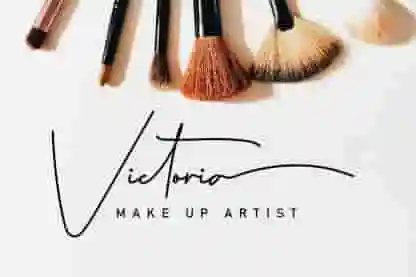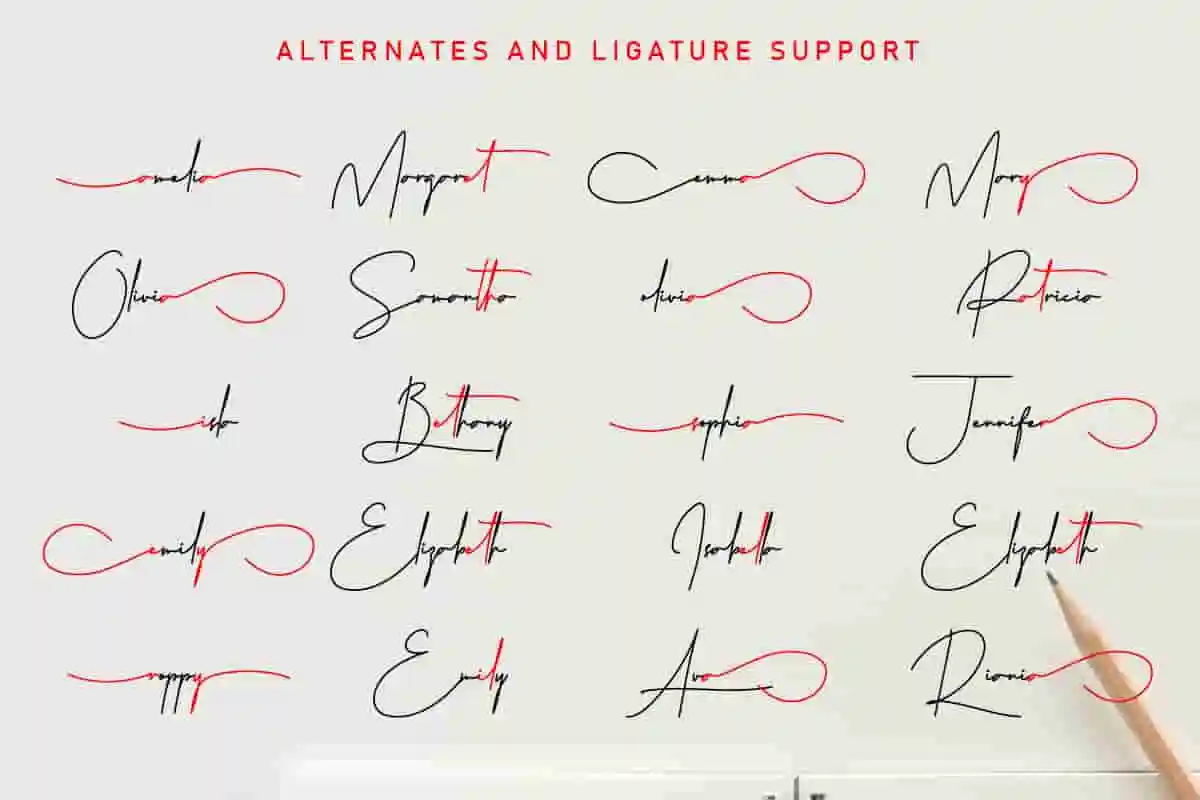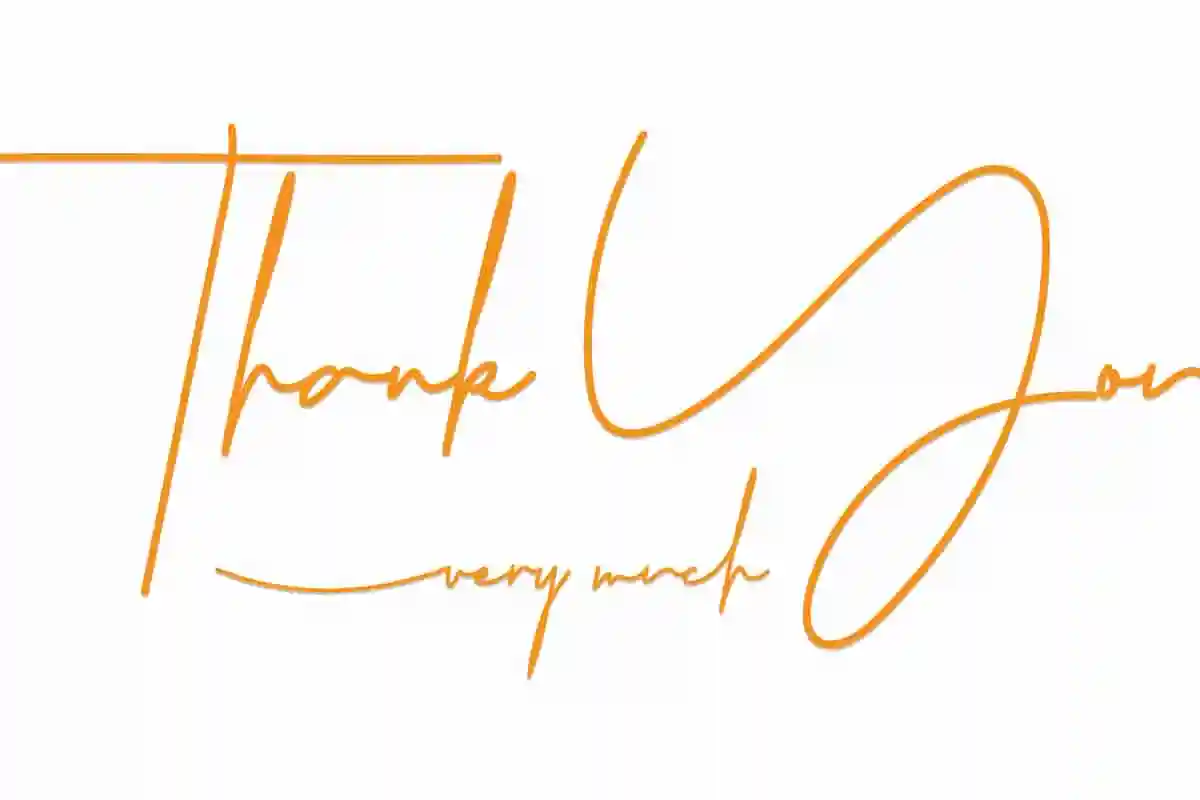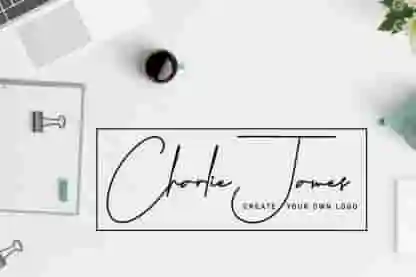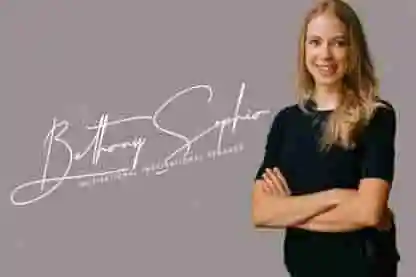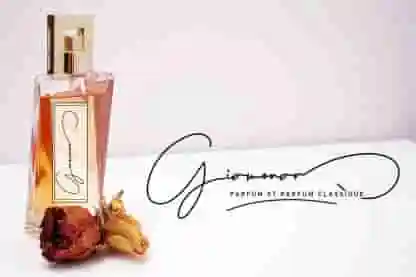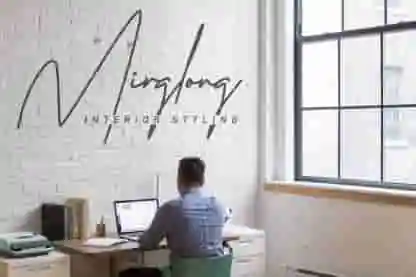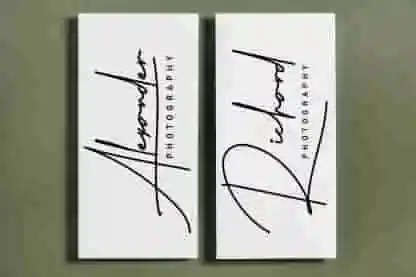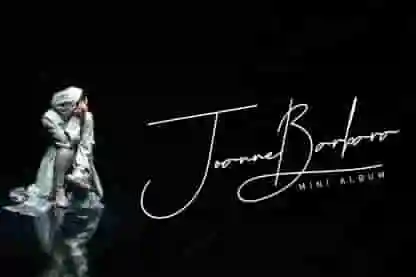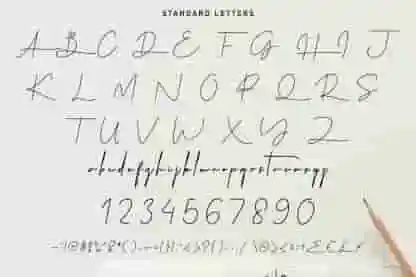
Westerners Font
Westerners Font is a handwriting script Font with a unique light weight signature style designed by CalligraphyFonts.net
Westerners Font is a handwriting script Font with a unique light weight signature style. The theme of this font are casual, modern, elegant, luxury, handwritten, classic and simple lettering.